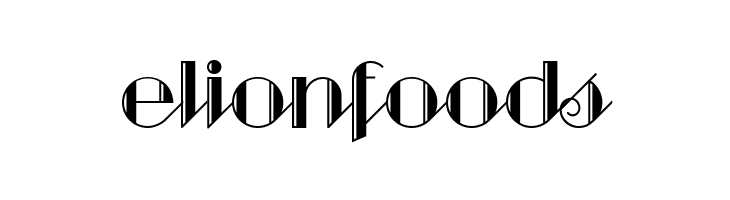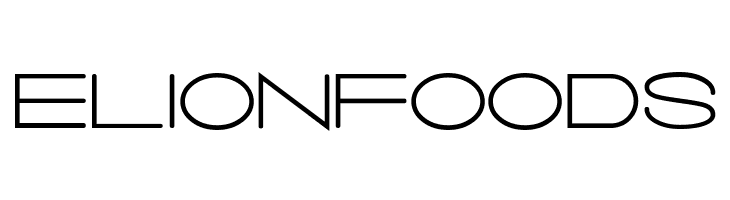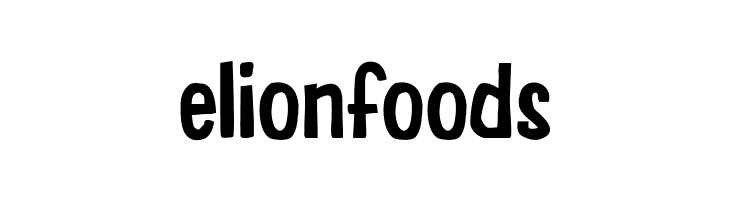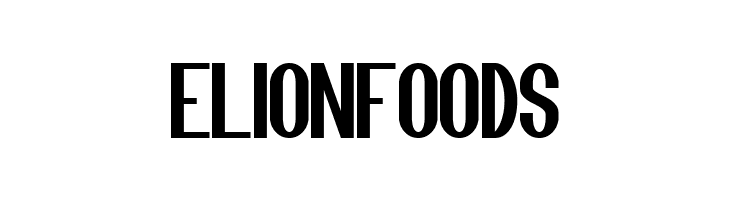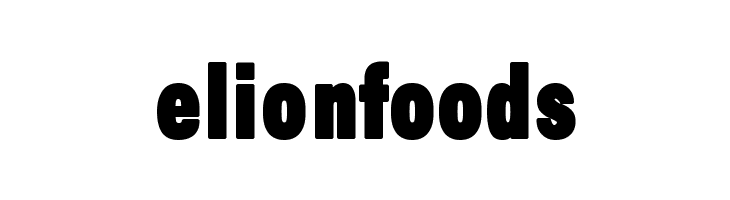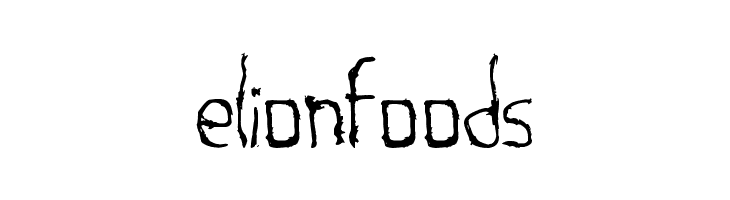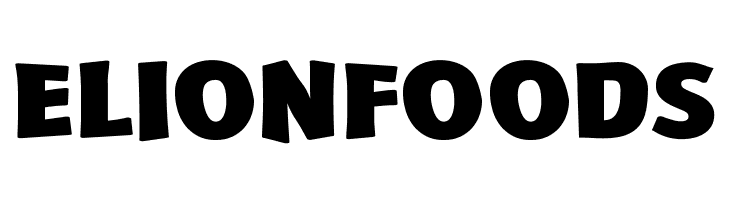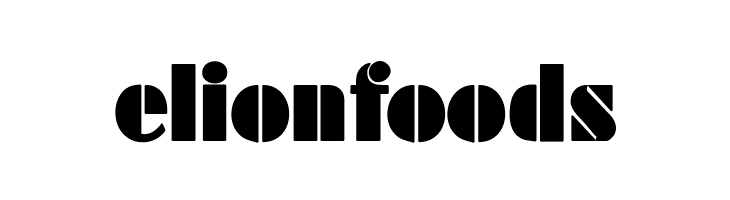
• Sala de Fiestas
A bold, playful font with medium contrast and a slightly condensed style.
• Salaryman
A sleek, modern font with geometric lines and a monospaced appearance.
• Sandal x LOVE
• SansThirteenBlack
A bold, sans-serif font with thick, uniform strokes for a strong visual impact.
• Sarsaparilla NF
A bold, geometric font with decorative elements and intricate curves.
• SarsaparillaNF
A decorative font with geometric elements and high contrast, offering a sophisticated yet playful style.
• Savage
• Scara Conquers the Universe
• SchabLonski
A bold, geometric font with high contrast and unique cutouts.
• Schonan-Black
A bold, playful font with thick strokes and dynamic character shapes.